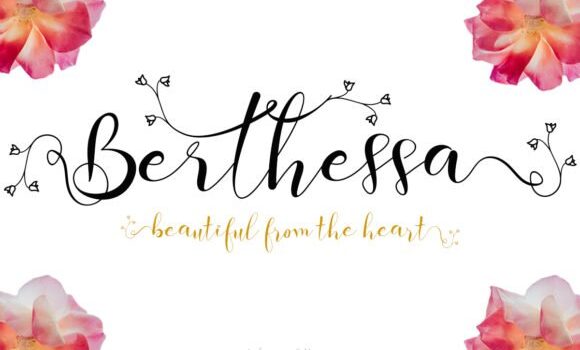
berthessa
Berthessa Font – Free Download Introduction to Berthessa Font Berthessa is am elegant and romantic handwritten script font. 📸 Preview Gallery 6 images 📌 Product Name Berthessa Font 👤 Author yogaletter6 📂 Category Explore ⬇️ Download Berthessa Font FREE Free